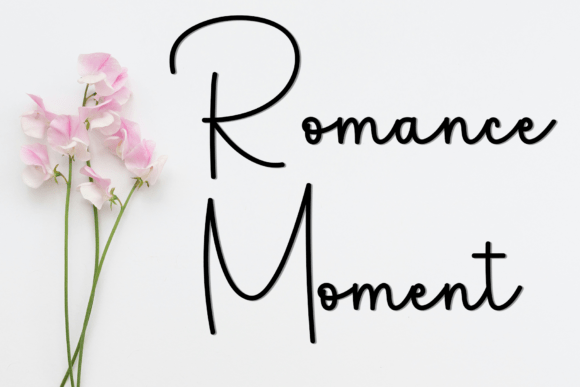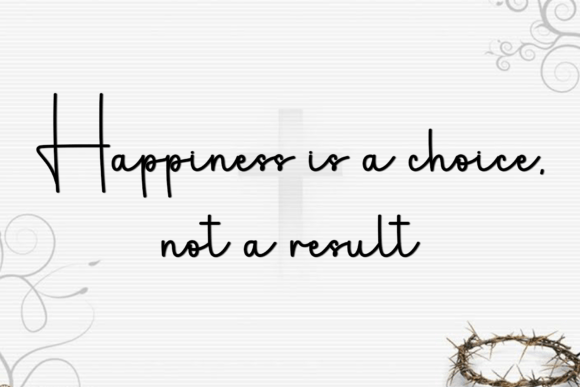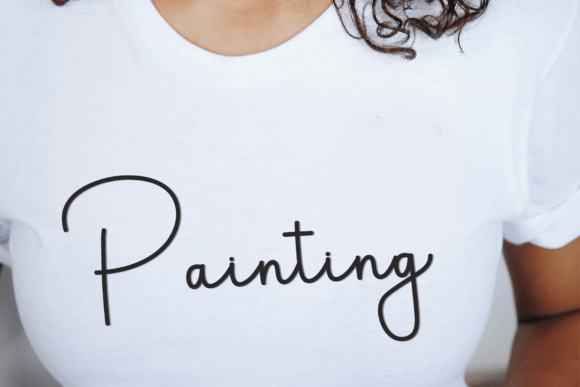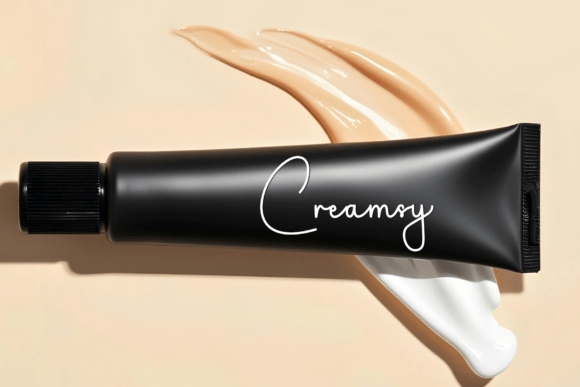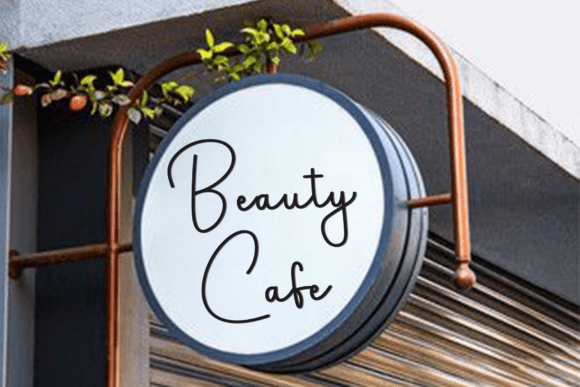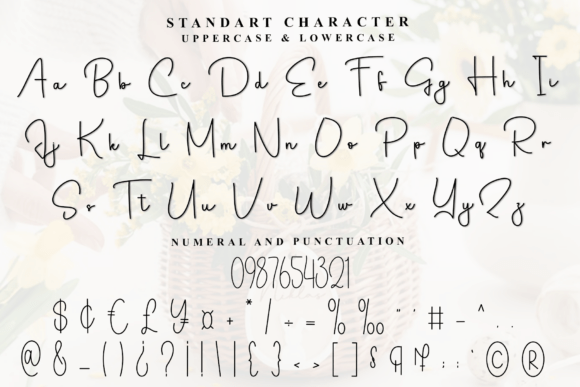
The Magic of Elegant Document Font: A Festive Holiday Delight
It’s that time of the year again – the holiday season is just around the corner, and with it comes the pressure to create stunning designs that capture the spirit of the festivities. I recall a particularly stressful design project last year, where I was tasked with creating a set of holiday greeting cards for a client. As I scrolled through my font library, I couldn’t help but feel like something was missing. That’s when I stumbled upon the Elegant Document font, and it instantly became the perfect fit for the project. With its whimsical flair and decorative elements, it added a touch of enchantment to my designs that I hadn’t seen before.
- ✨ Elegant Document is a beautifully crafted font that exudes a sense of festivity and joy, making it perfect for holiday-themed projects.
- ✅ The font comes with a wide range of decorative elements, glyphs, and ligatures that can be easily accessed thanks to its PUA encoding.
- 🎉 It’s incredibly versatile and can be used for various design projects, including greeting cards, gift tags, and social media graphics.
A Few Quirks to Keep in Mind
- 🤔 While Elegant Document is a stunning font, it may not be the best choice for body text or long-form content due to its decorative nature.
- ⚠️ Some users may find that the font’s whimsical elements can be overwhelming if not used thoughtfully in their designs.
The Story Behind Elegant Document Font
Elegant Document font was designed by a talented type designer who wanted to capture the magic and wonder of the holiday season. With inspiration from traditional holiday decorations and vintage typography, the font was carefully crafted to bring a touch of enchantment to your designs. Whether you’re a designer, crafter, or creative hobbyist, Elegant Document font is sure to become a favorite in your font library.
Q: What is PUA encoding, and how does it benefit the user?
A: PUA (Private Use Area) encoding allows designers to access a wide range of glyphs, ligatures, and stylistic alternates within the font, making it easier to create unique and creative designs.
Q: Is Elegant Document font suitable for body text or long-form content?
A: While Elegant Document font is a beautiful and festive font, it may not be the best choice for body text or long-form content due to its decorative nature.